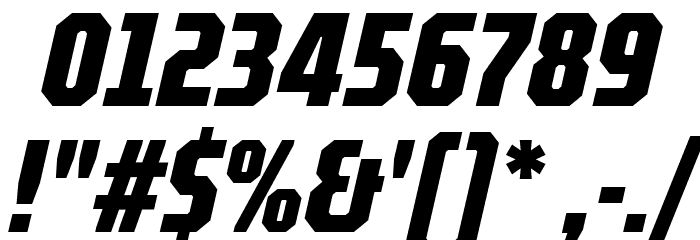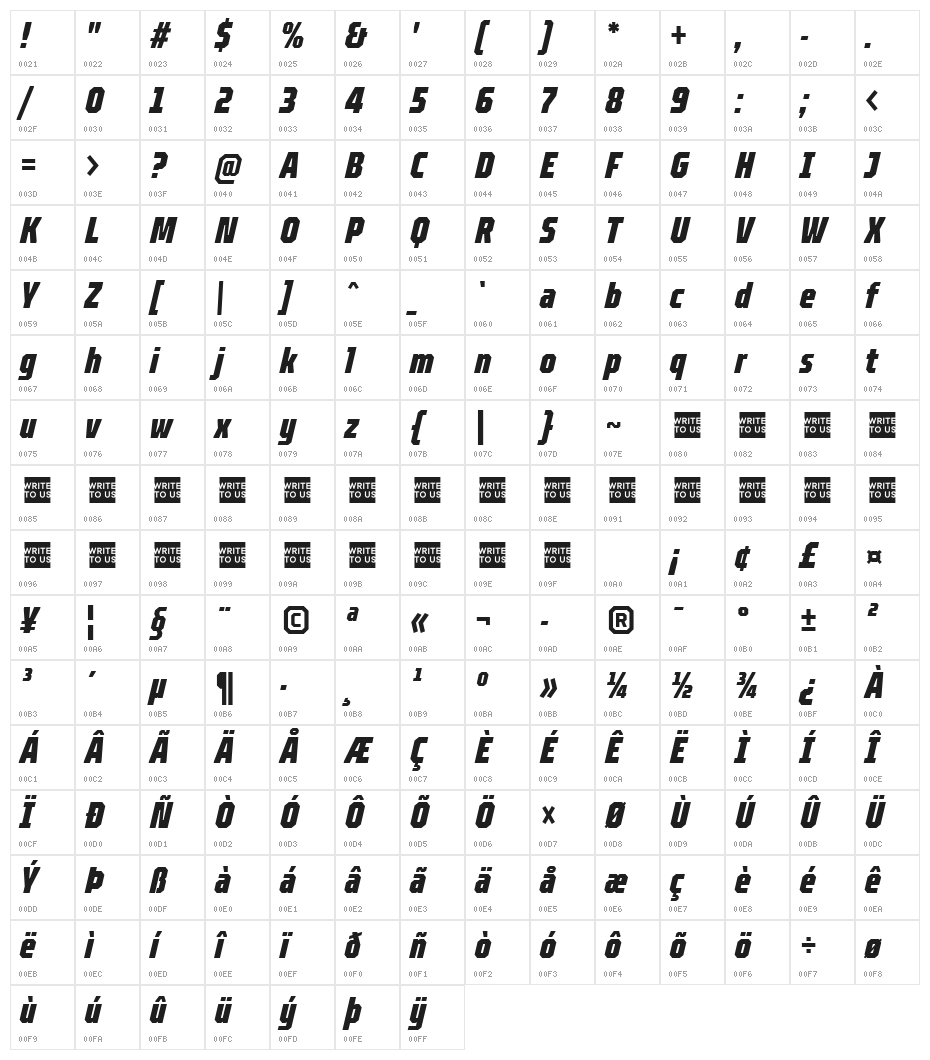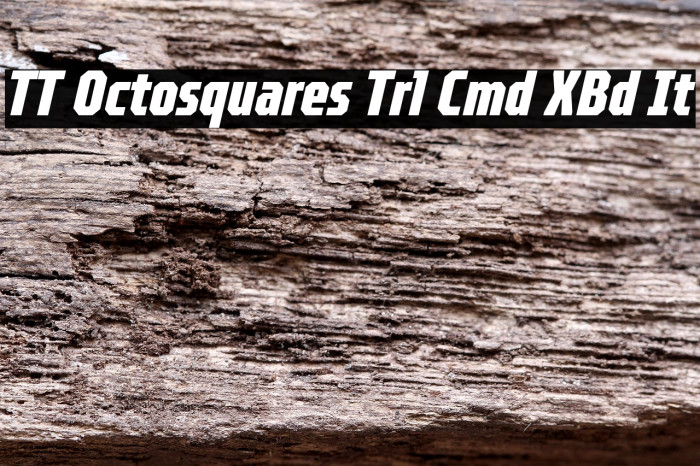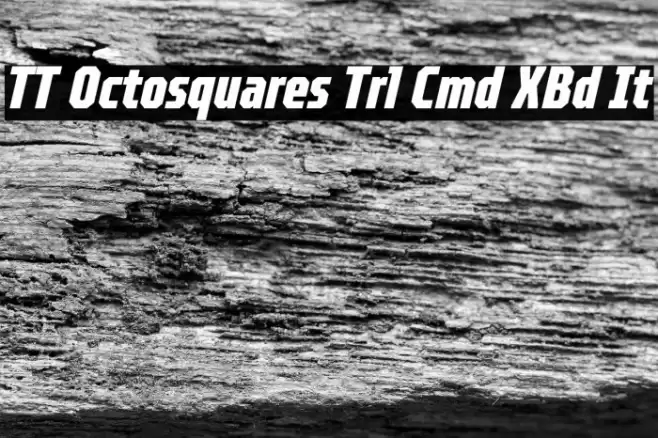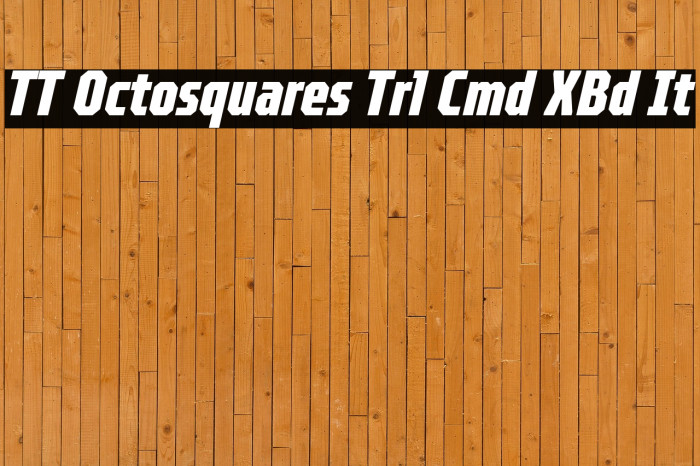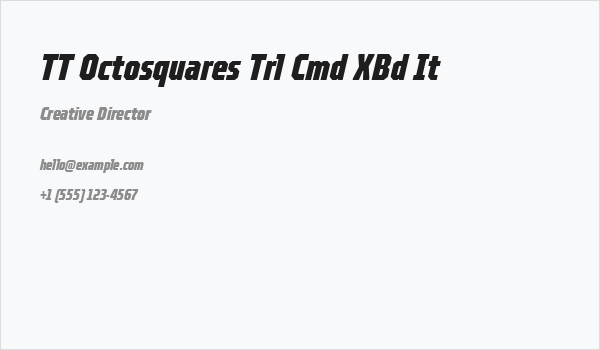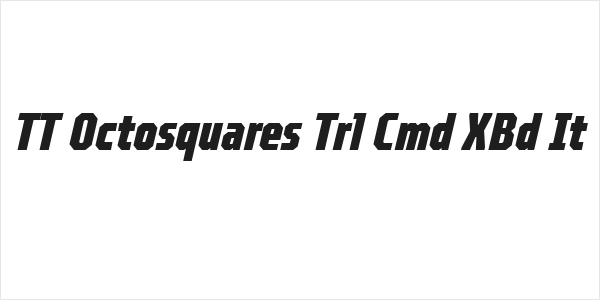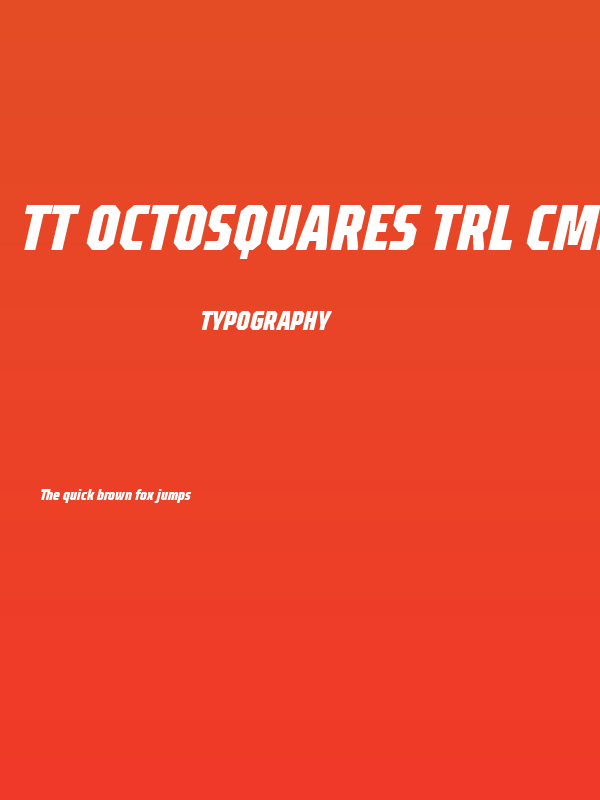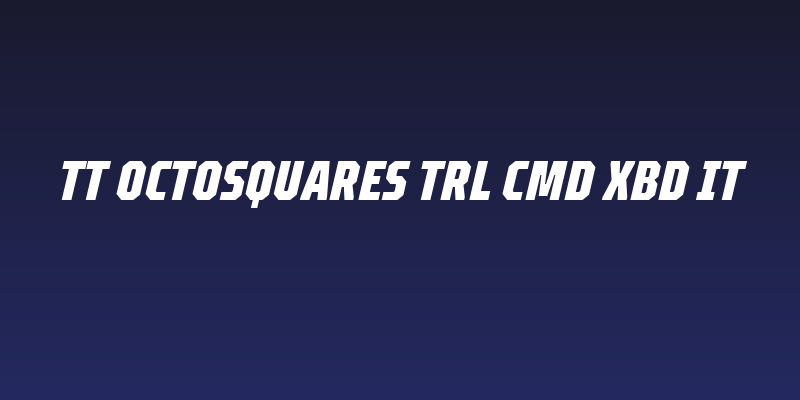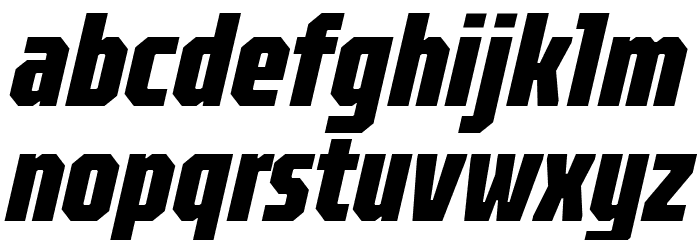
TT Octosquares Trl Cmd XBd It Font
TT Octosquares Trl Cmd XBd It Description
This font features a bold and commanding presence with its thick, angular strokes and geometric design. The characters are sharply defined, with a distinct slant that adds a dynamic and modern feel. The uppercase letters are particularly striking, with a strong emphasis on vertical and horizontal lines, while the lowercase letters maintain the same angular style, offering consistency throughout the typeface. The numerals and special characters are equally bold, ensuring readability and impact. This font is well-suited for projects that require a strong visual statement.
| Proposed Projects | Ideal for branding, sports team logos, posters, and headlines that require a strong, modern aesthetic. |